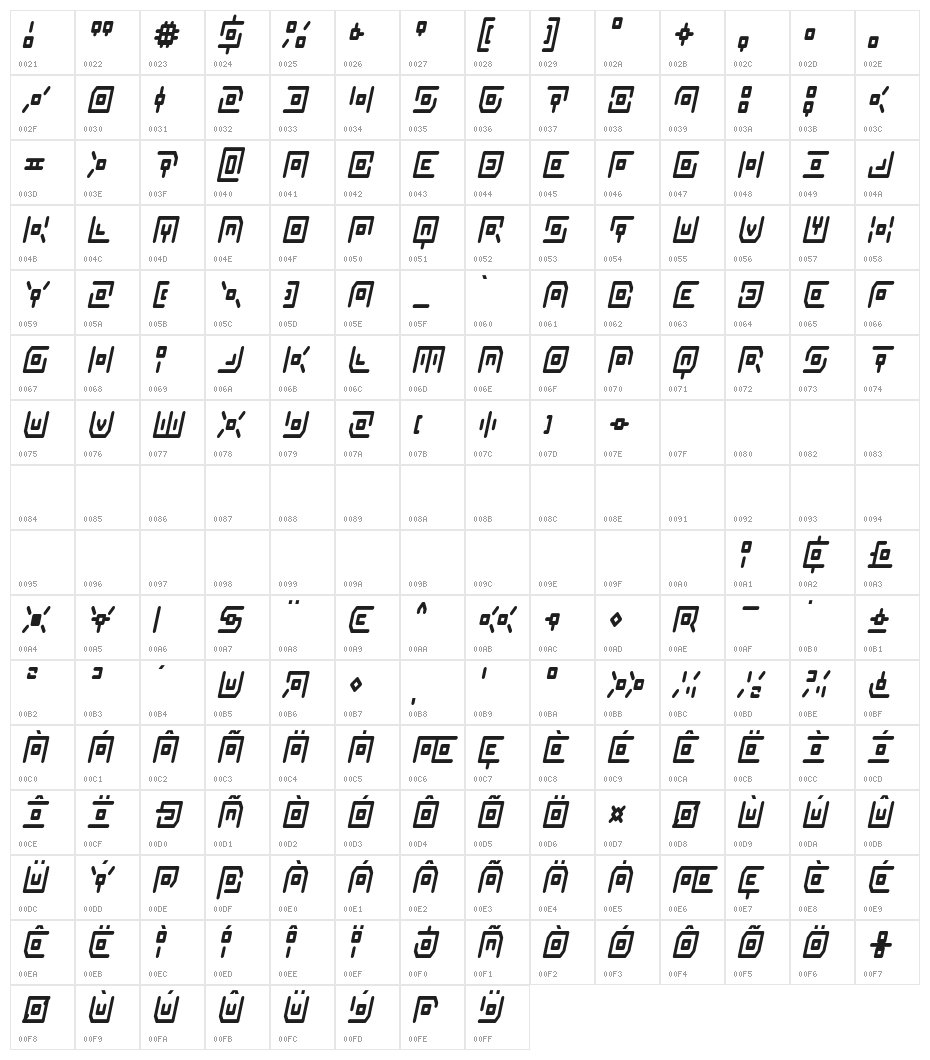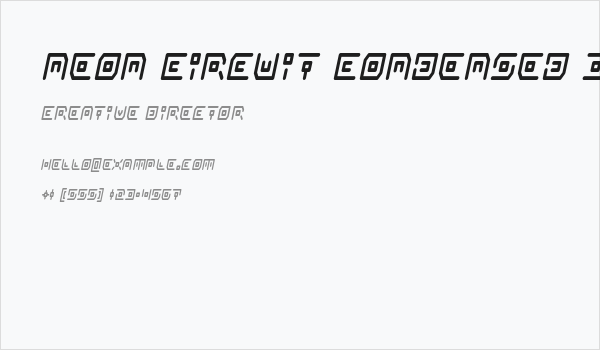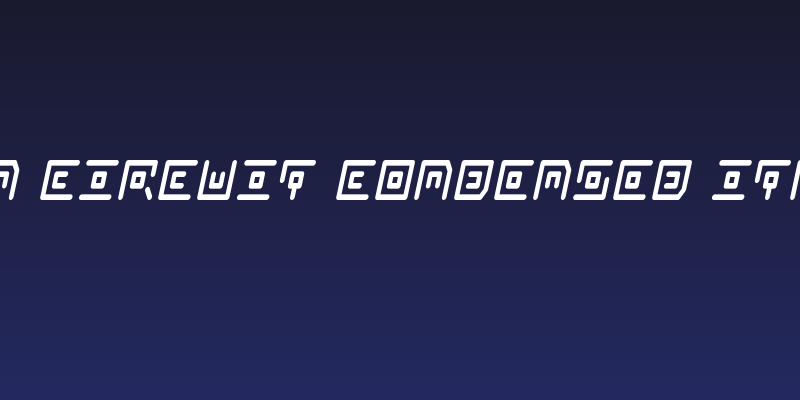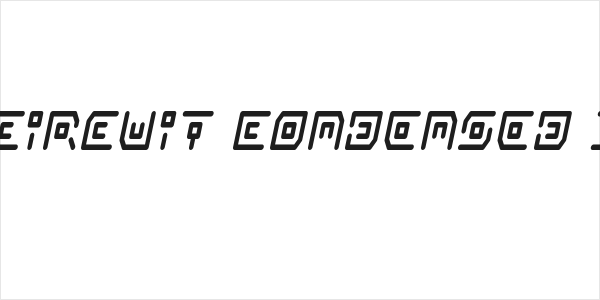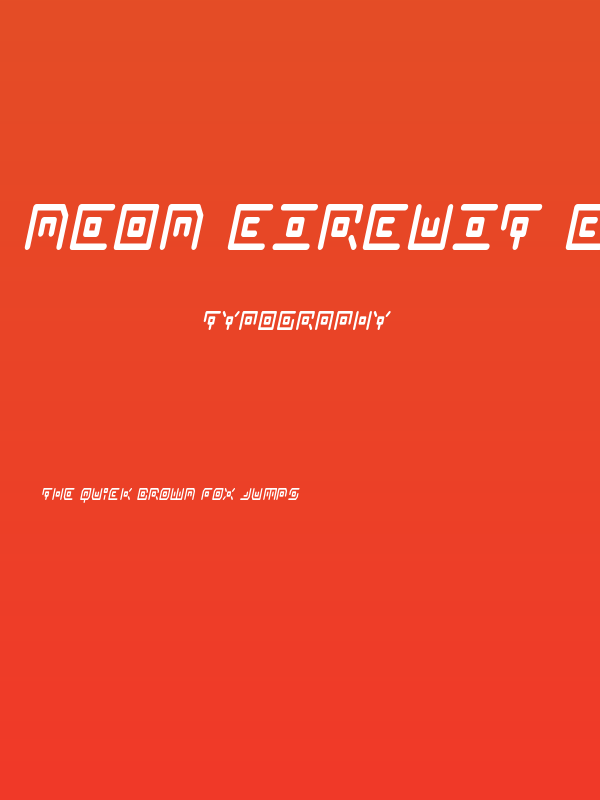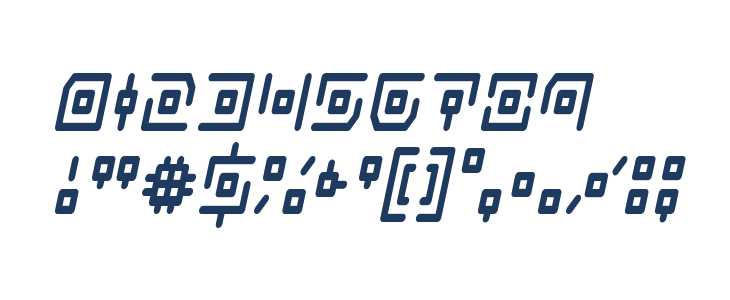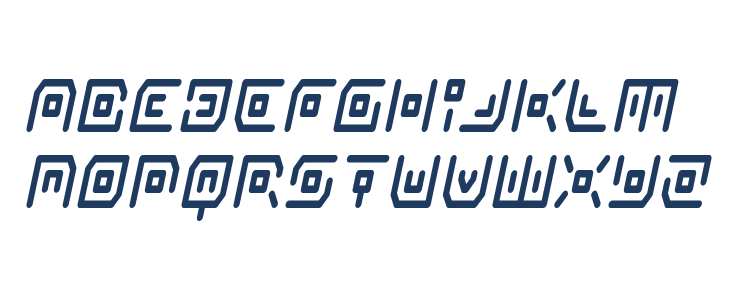
Neon Circuit Condensed Italic Font
Neon Circuit Condensed Italic Description
This font features a futuristic and digital aesthetic, characterized by its geometric and circuit-like design. The characters are composed of angular lines and sharp corners, creating a high-tech and modern appearance. The condensed style gives it a compact look, while the italic slant adds a sense of motion and dynamism. The font is highly stylized, making it suitable for creative and tech-oriented projects. Its unique design elements make it stand out, providing a distinctive visual impact.
| Proposed Projects | Ideal for tech branding, video game titles, sci-fi movie posters, and digital art projects. |